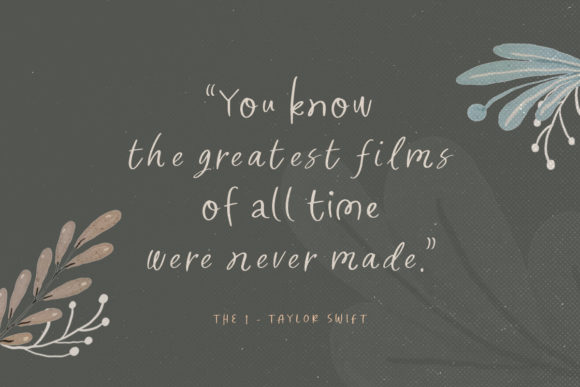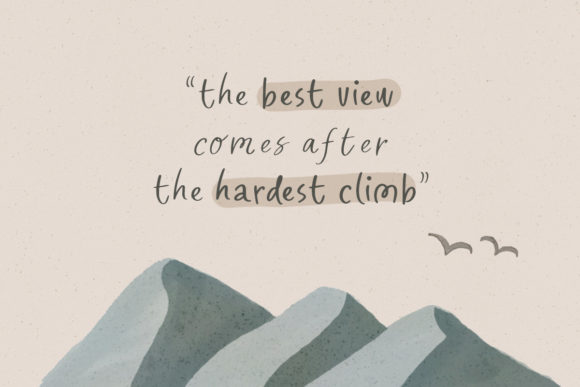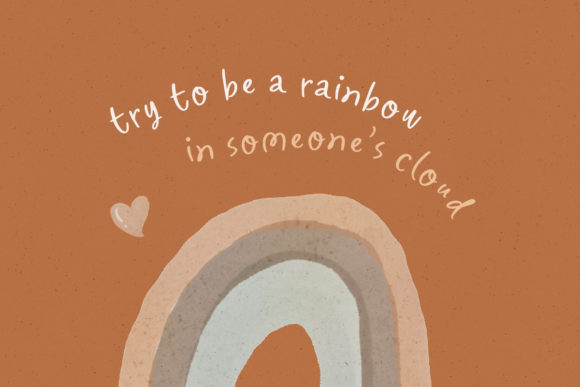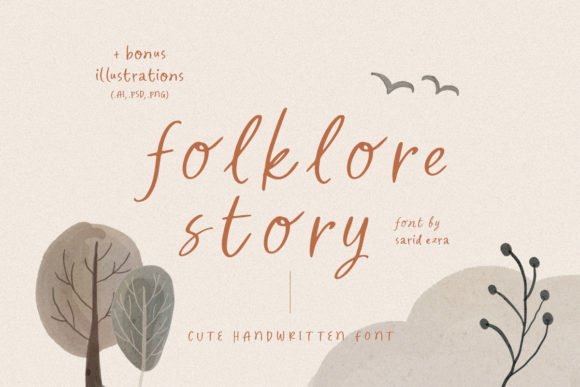
Introduction to Folklore Story Font
Folklore Story is a beautiful and flowing script font.
Dainty and lovely, this font will make each of your designs look natural and versatile Add it confidently to your favorite creations and let yourself be amazed by the outcome generated.
Folklore Story Font offers exceptional quality and versatility, making it a valuable addition to your design toolkit. Whether you’re creating for personal projects or commercial use, Folklore Story Font delivers professional results.